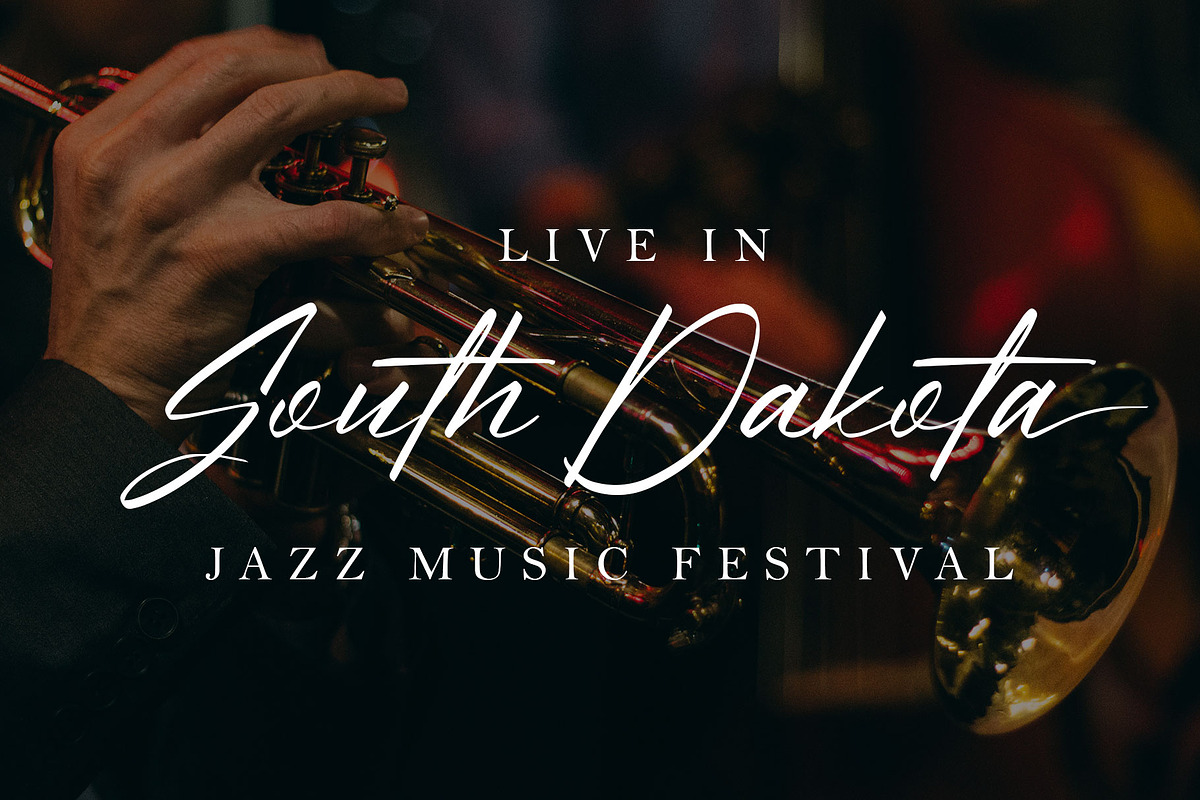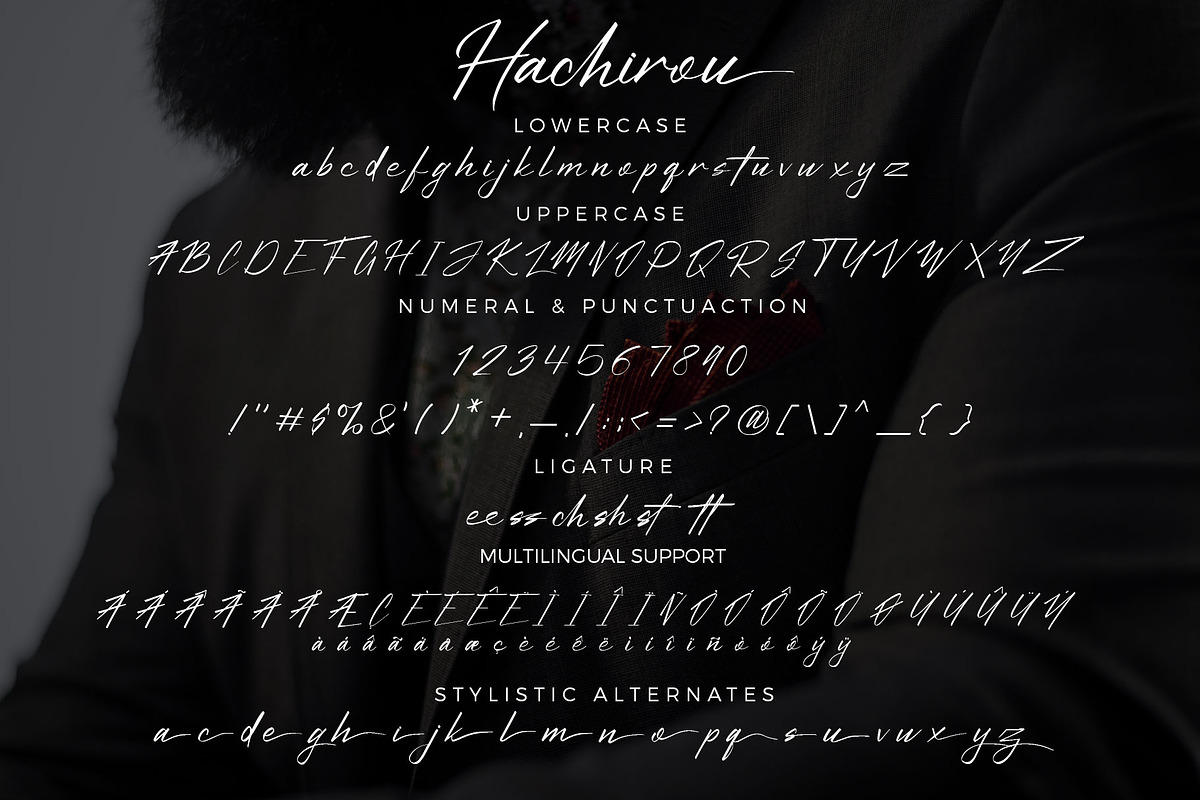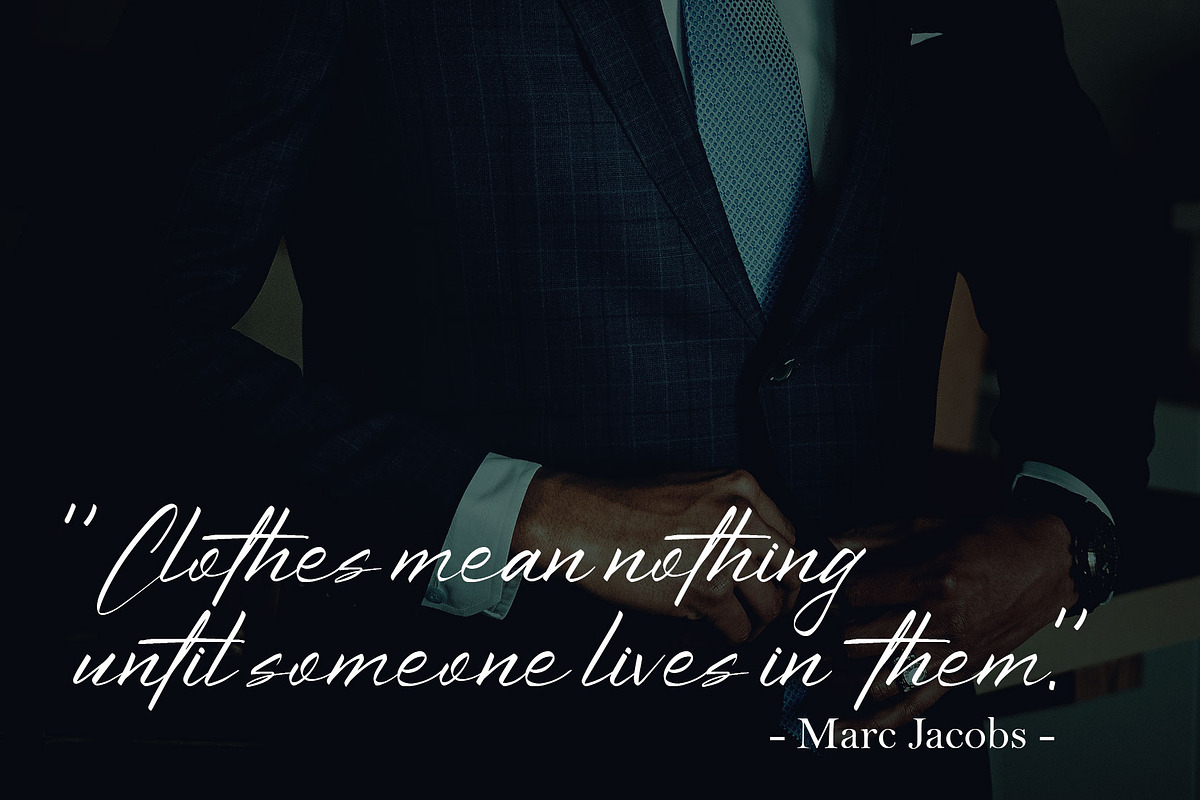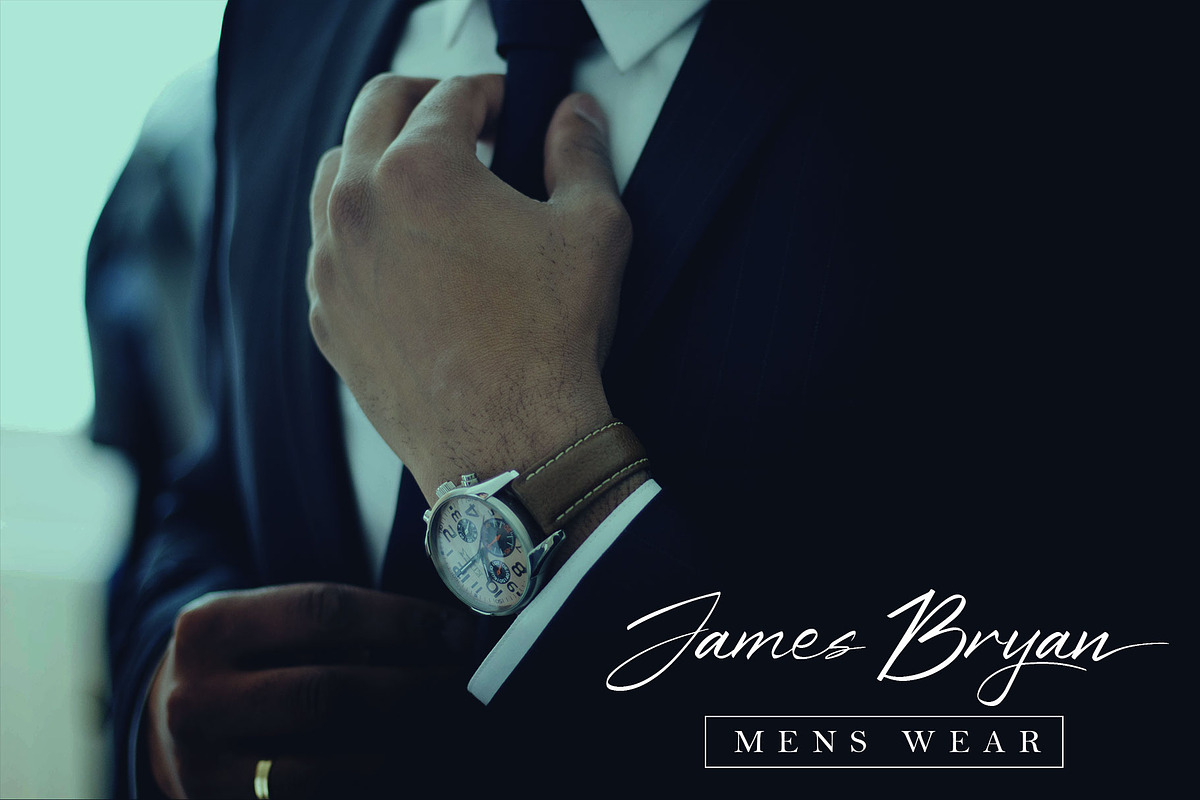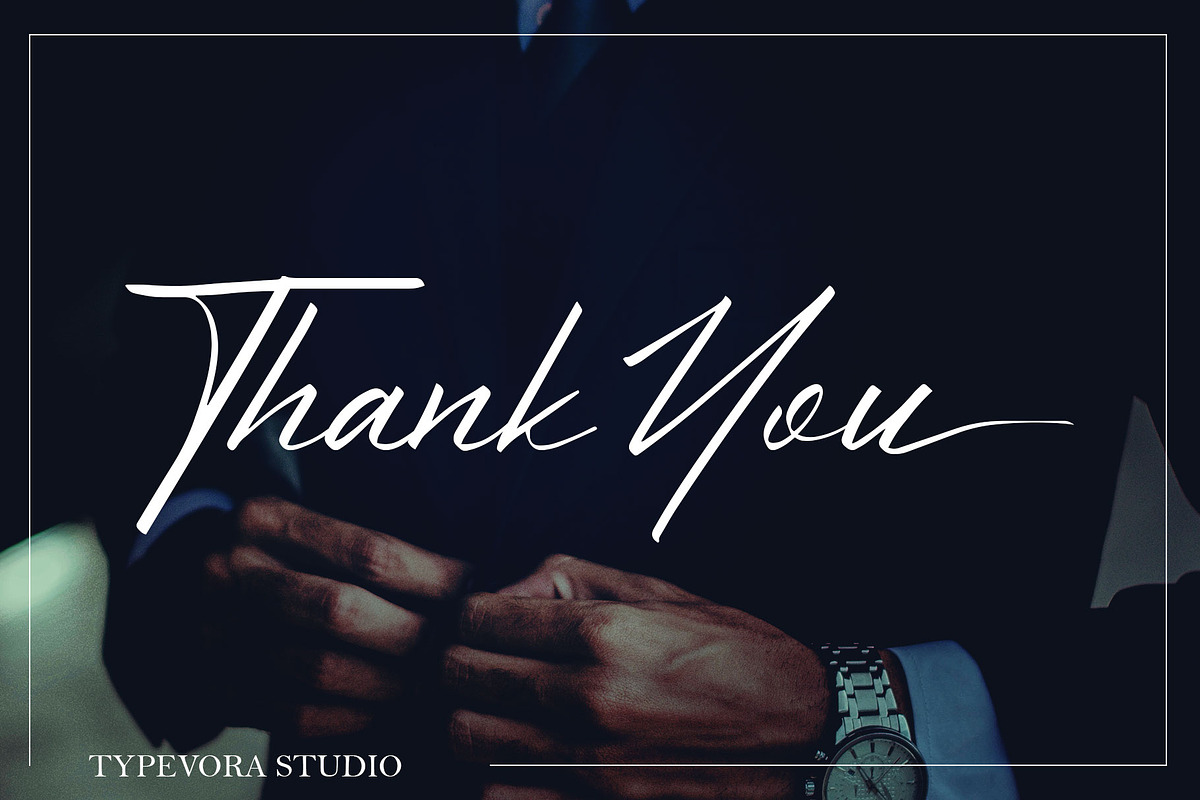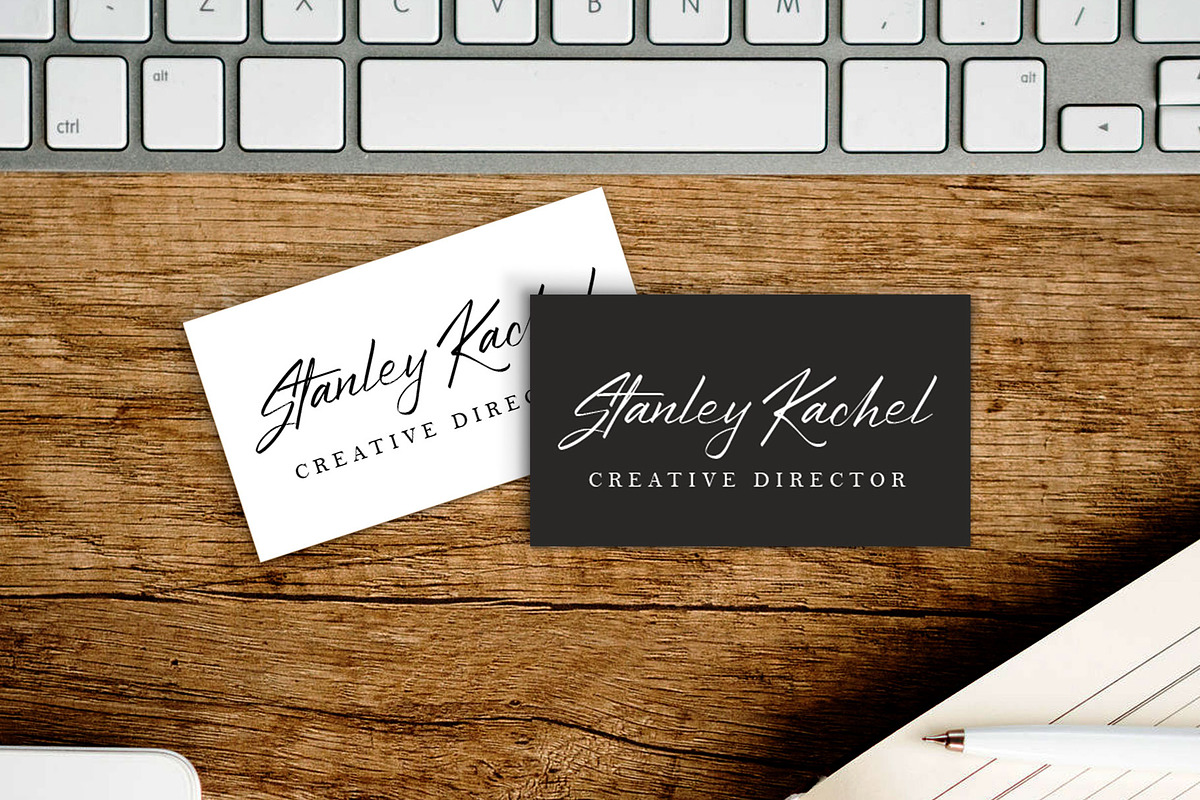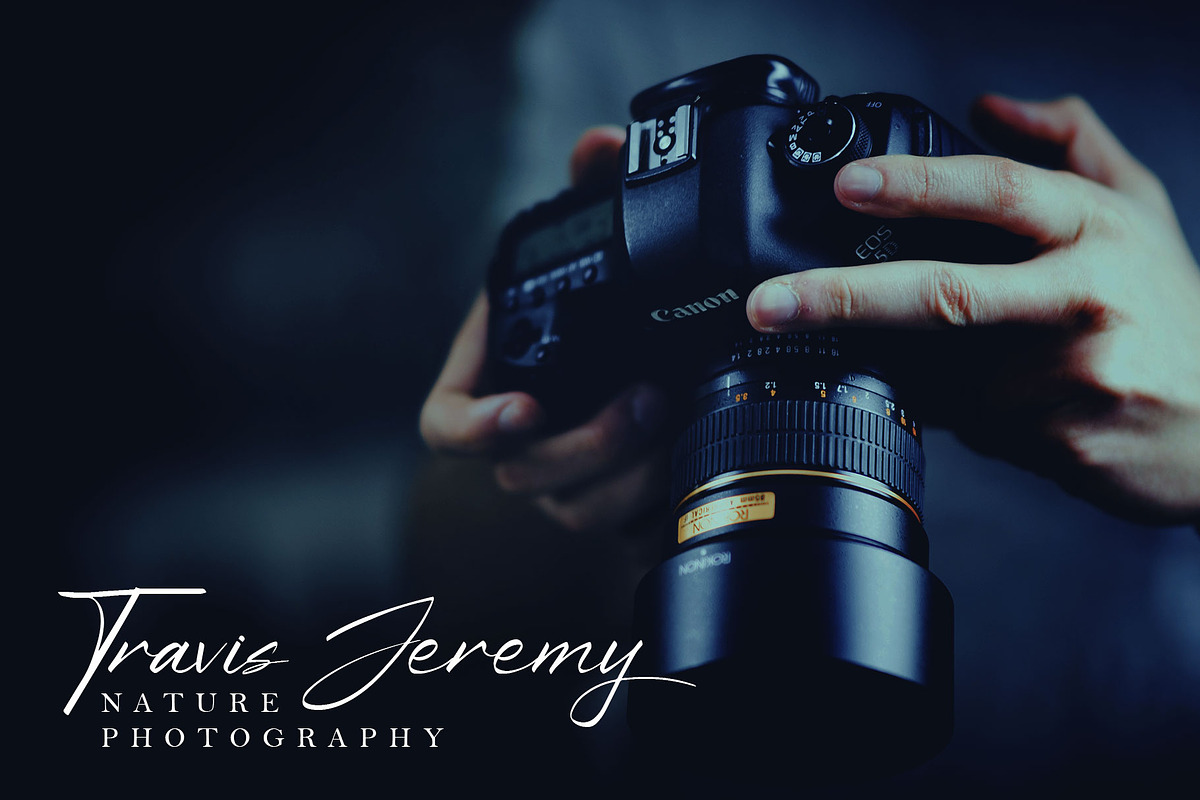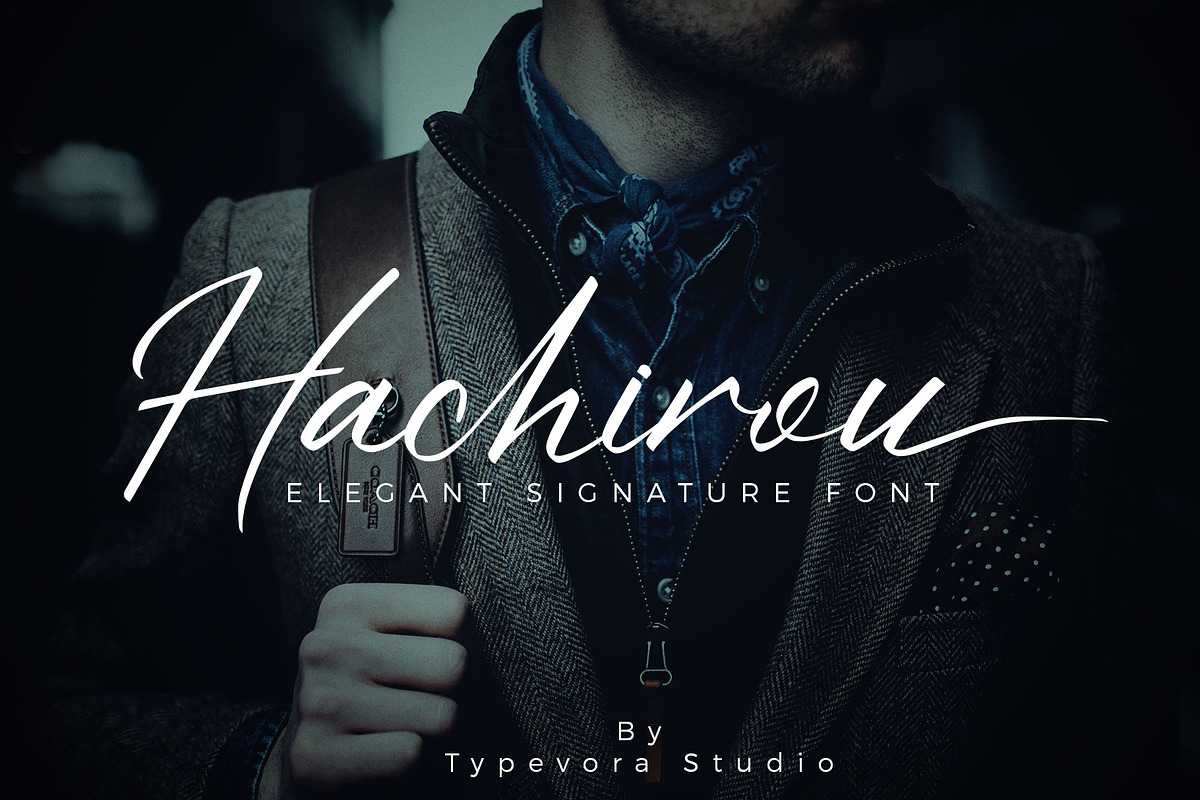
Hachirou - Signature Font
Hachirou - a signature and Elegant font perfect for branding, invitation, stationery, wedding designs, social media, advertisements, product packaging, product designs, label, photography, watermark, special events or anything.
Why Hachirou - Signature Font is worth a look
Hachirou - Signature Font by Typevora Studio fits naturally into Branding, posters, packaging, typography.